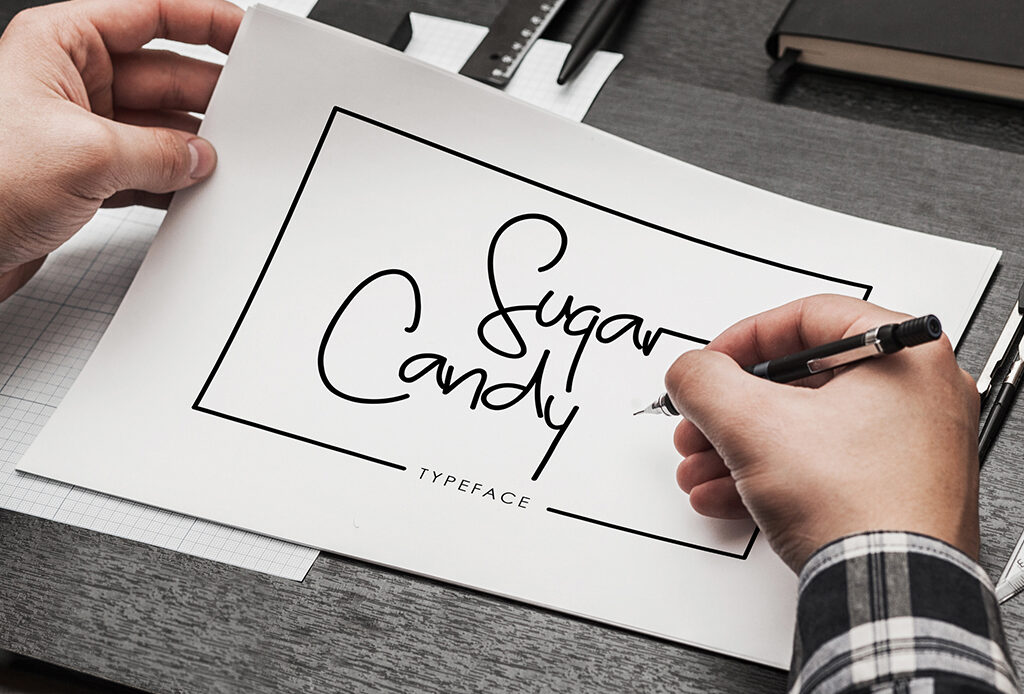
Journey into a world of enchanting allure with Sugar Candy Font, a masterpiece of digital calligraphy, where elegance and sophistication converge. Immerse yourself in the beauty of this script font, meticulously crafted to evoke the charm and personality of handwritten artistry.
Beyond its aesthetic appeal, Sugar Candy Font is a versatile performer, seamlessly adapting to a myriad of creative endeavors. Whether you're a seasoned designer seeking to elevate your projects or a budding enthusiast yearning for a touch of individuality, Sugar Candy Font is your perfect companion. Its graceful strokes and meticulously balanced curves lend themselves effortlessly to wedding invitations, heartfelt letters, whimsical posters, and captivating social media graphics.
But Sugar Candy Font is more than just a versatile tool; it's an experience. As your fingers glide across the keyboard, you'll feel the magic of this font come alive, transforming your words into works of art. Each letter, meticulously designed with a human touch, carries the essence of genuine emotion, adding depth and resonance to your creations.
Unleash your imagination and let Sugar Candy Font take you on a creative odyssey. Its timeless appeal ensures that your designs will stand the test of time, captivating and enchanting audiences with every stroke. Embrace the allure of Sugar Candy Font and embark on a journey of limitless artistic expression today!